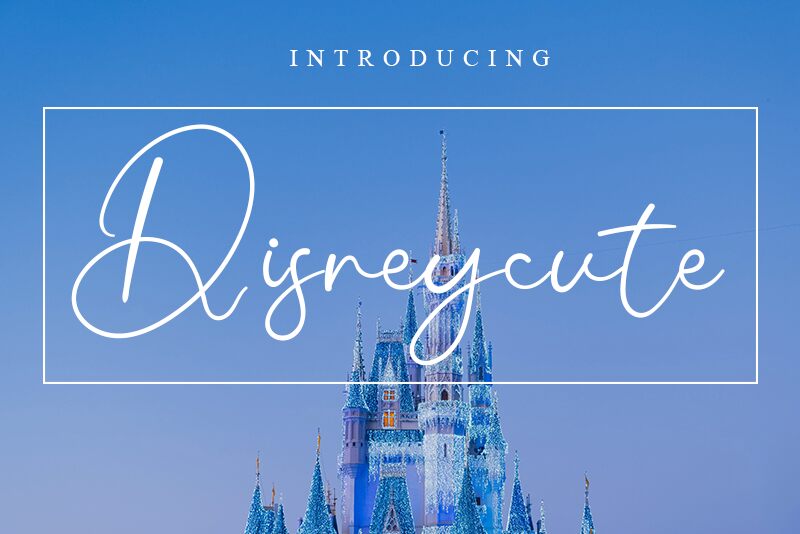
Disneycute, designed by Eddy Goodboy, is a whimsical handwritten font that will add a touch of playfulness to any project. With its extra-light weight, this font is perfect for creating delicate designs that need a touch of personality. From children's book covers to invitations and greeting cards, Disneycute will add charm and character to your projects. It's also ideal for branding projects that require a fun and approachable feel such as logos, packaging design, or social media graphics. Unleash your creativity with Disneycute!